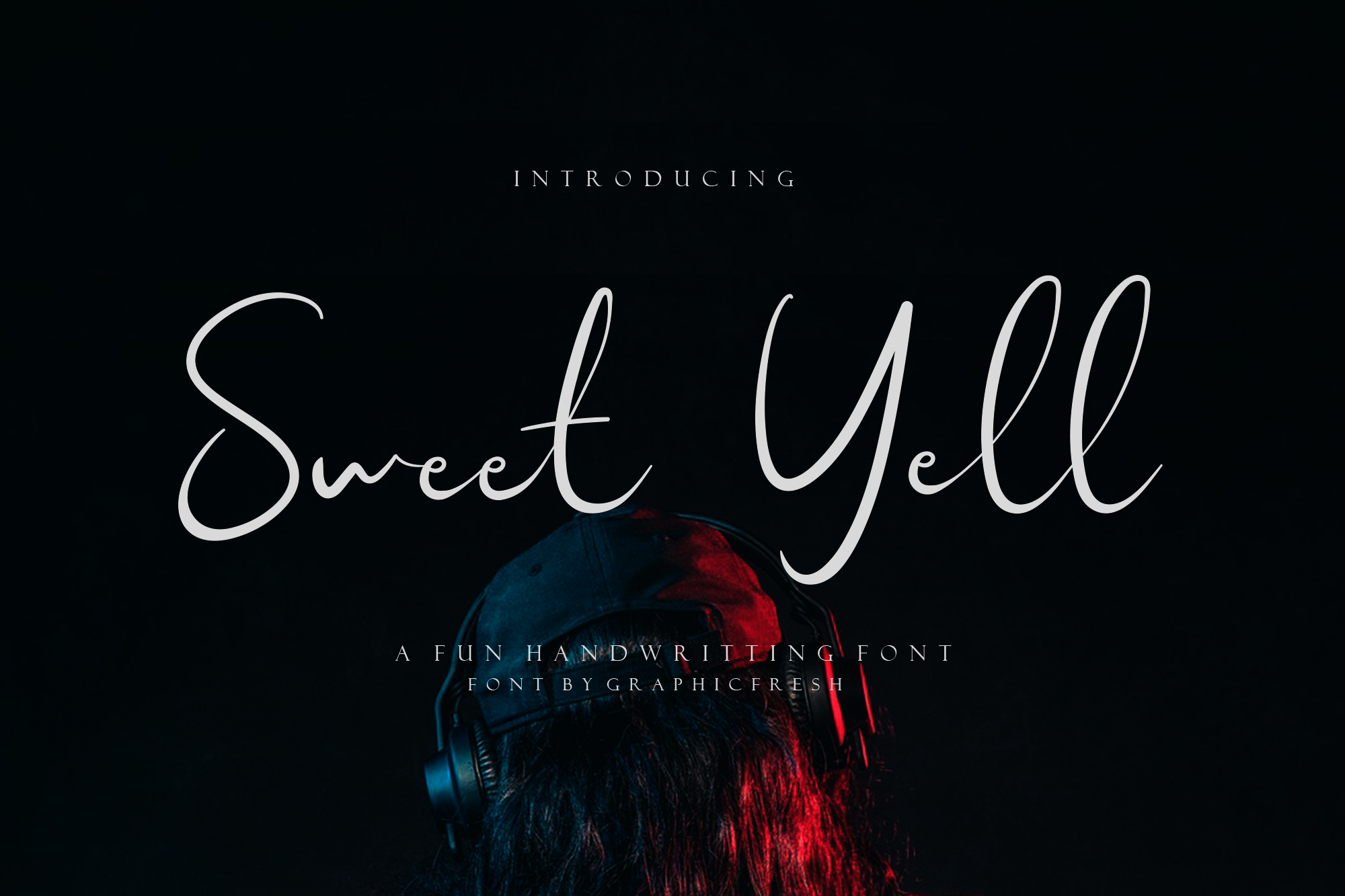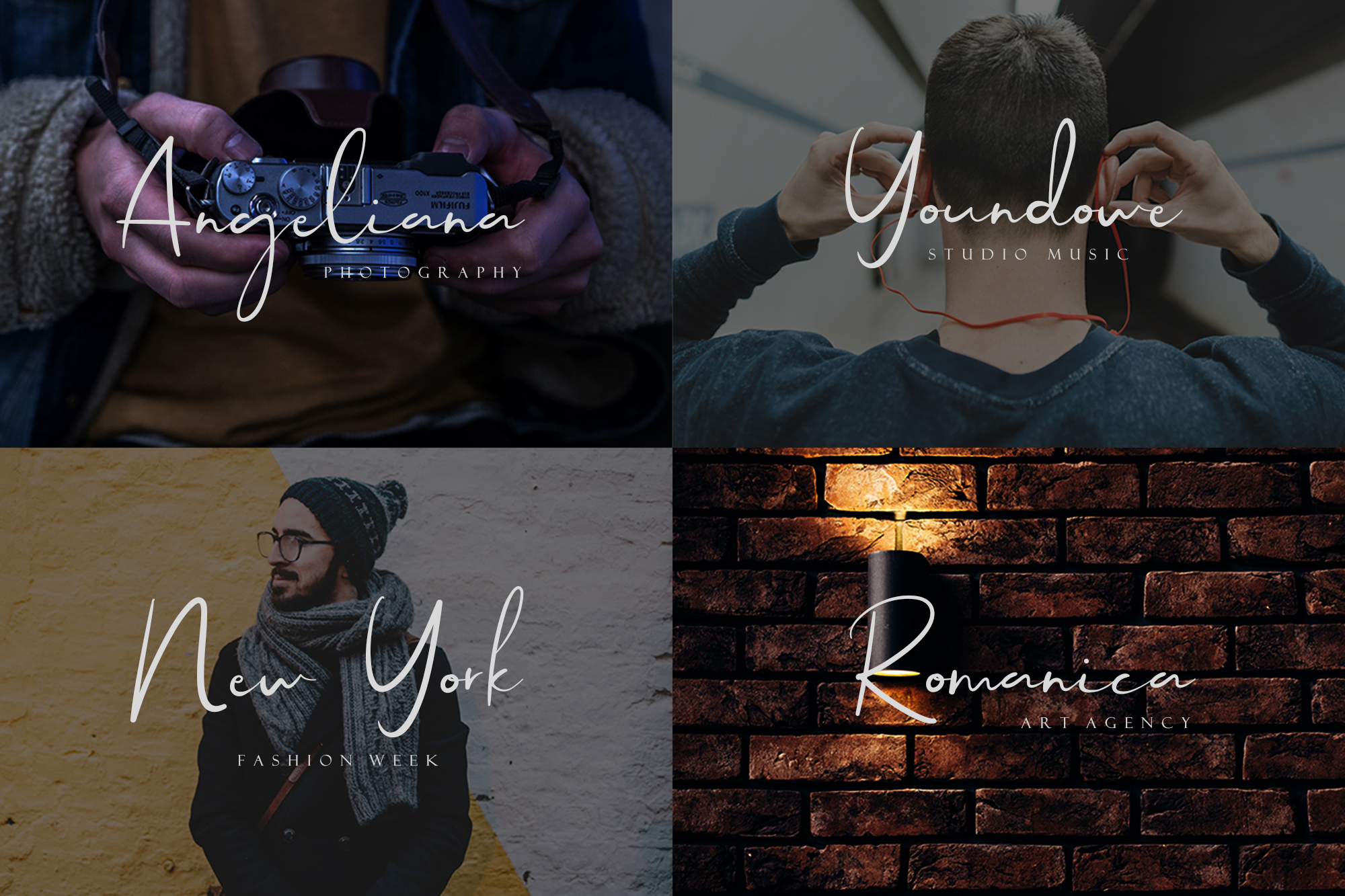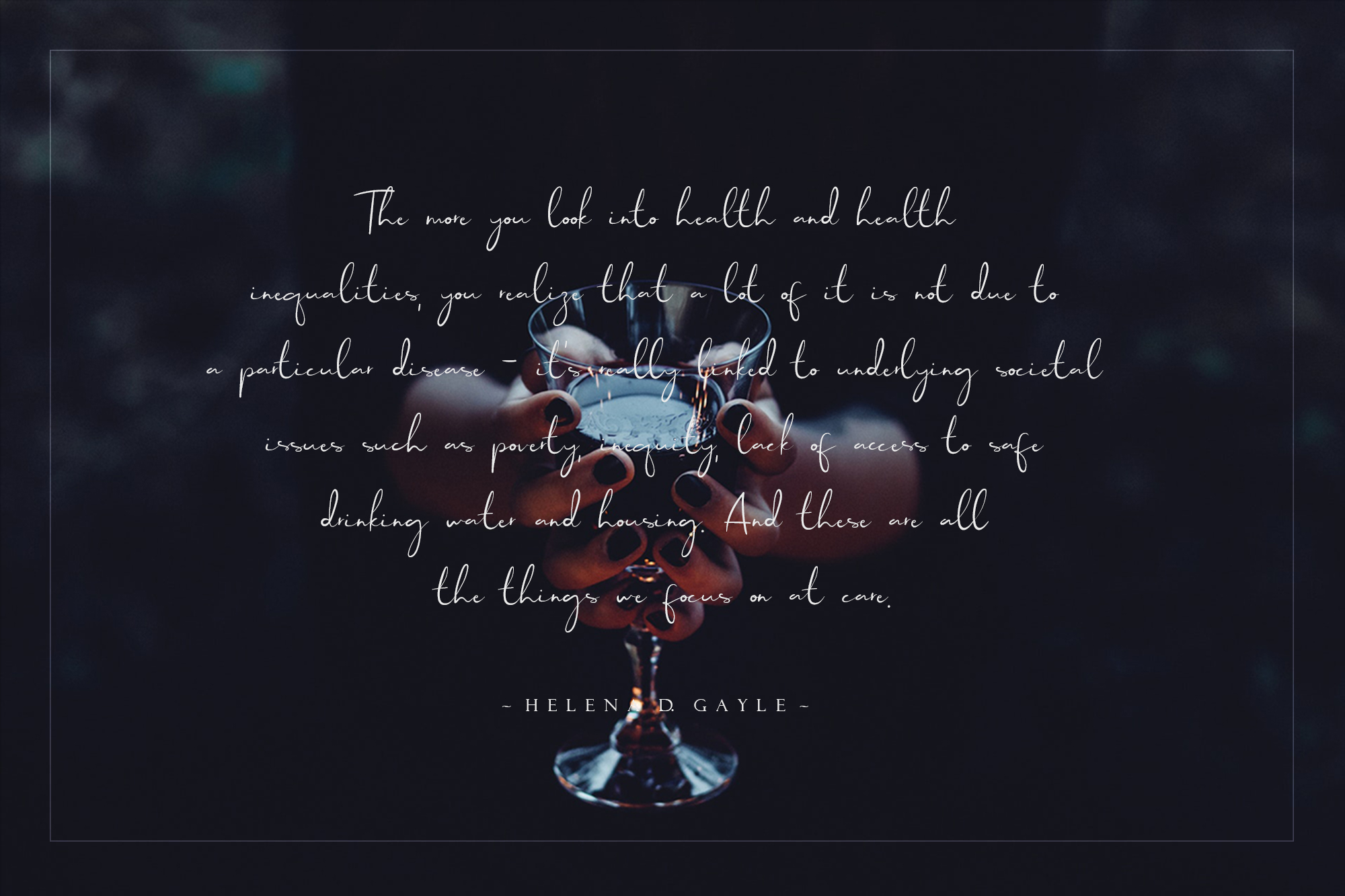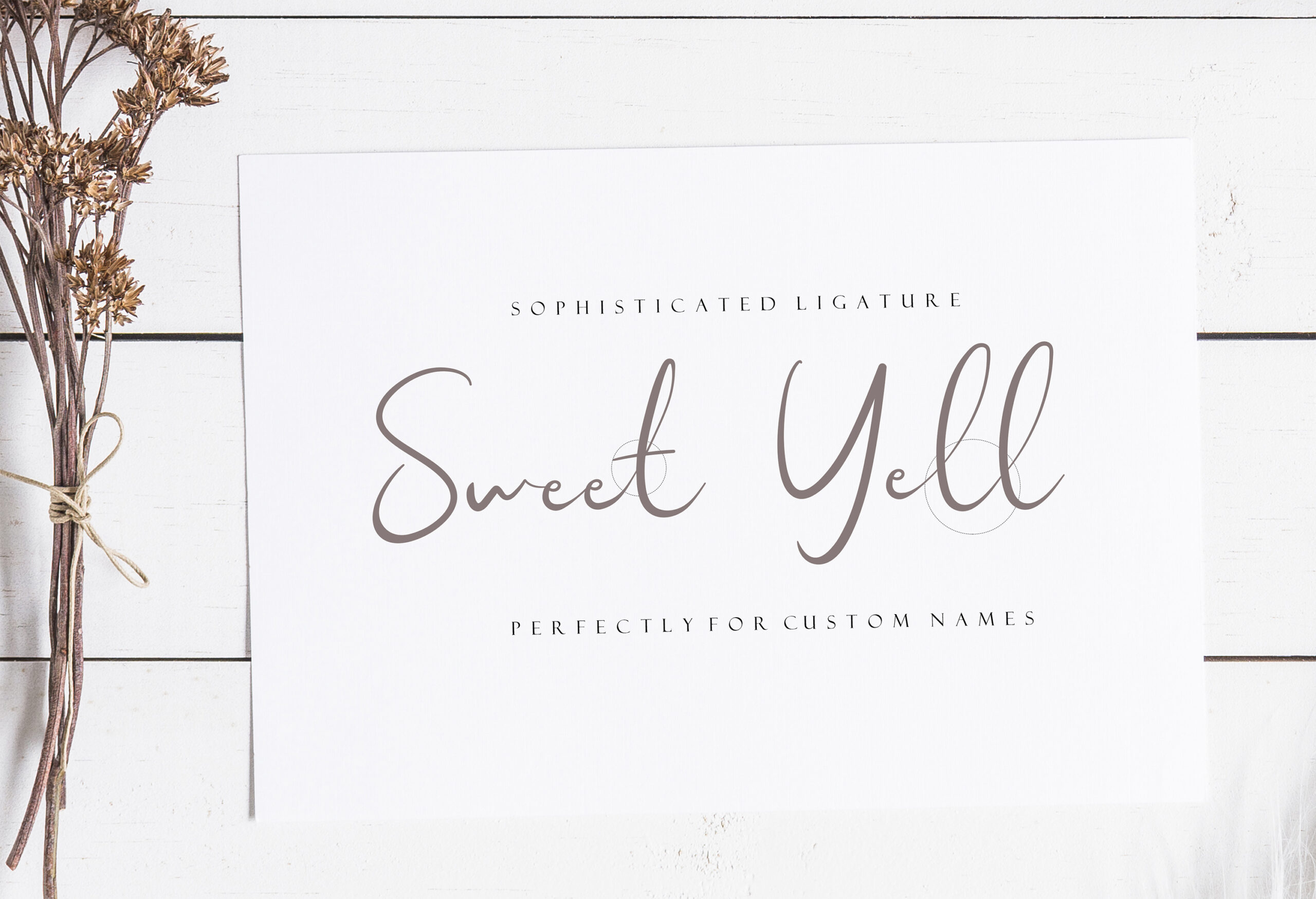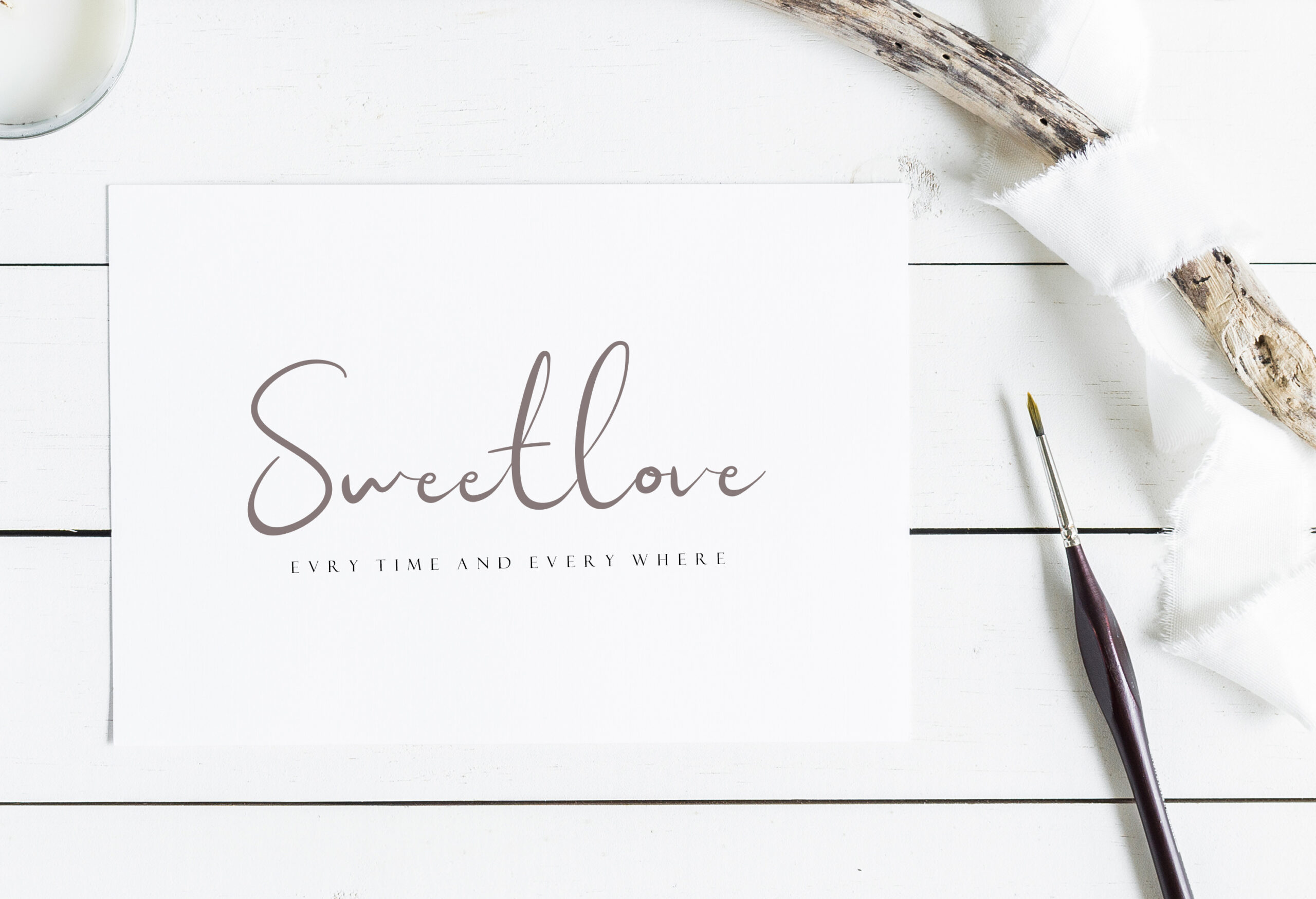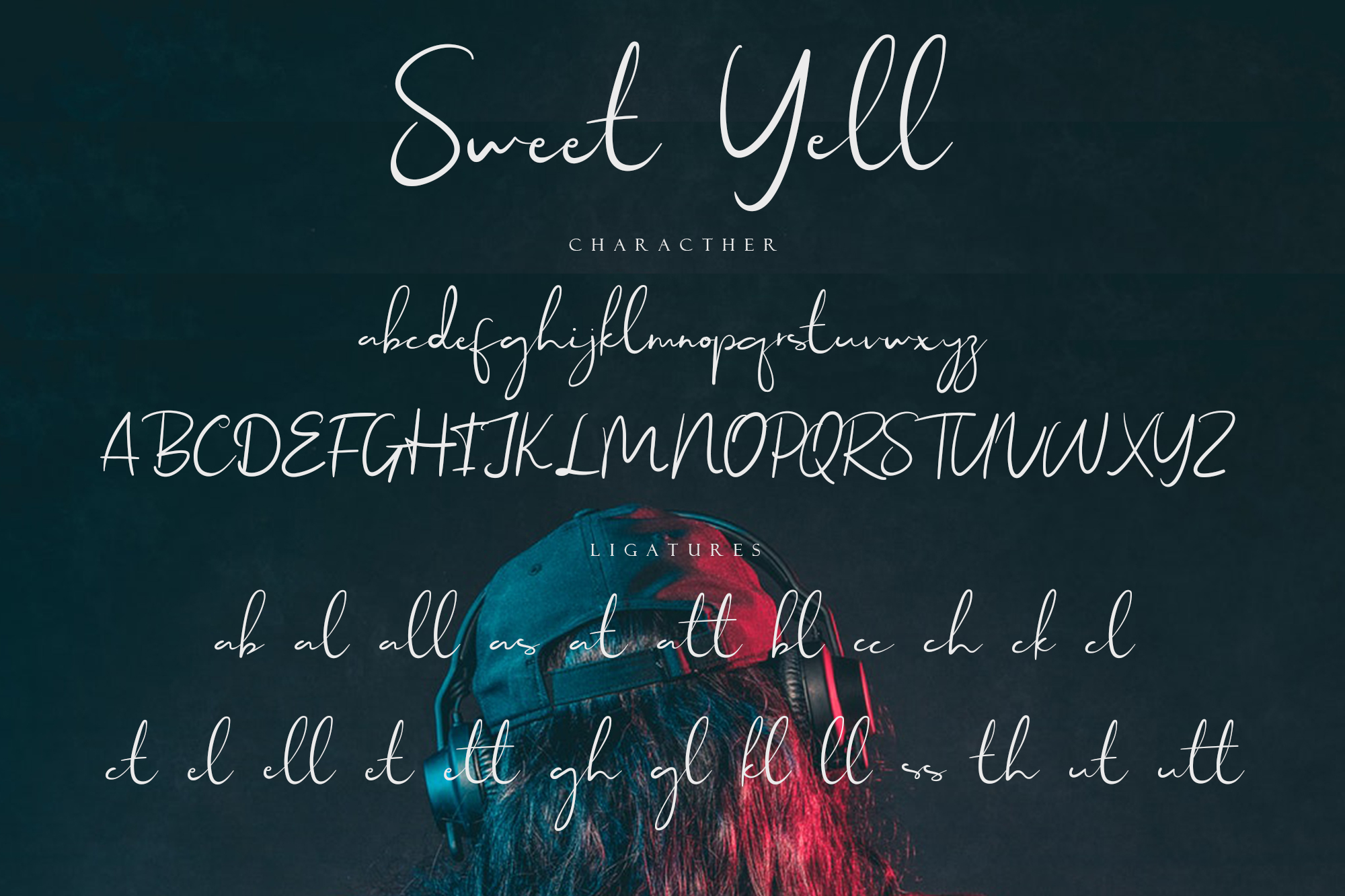
Sweet Yell Font
About Sweet Yell Font
Sweet Yell is a stylish and modern script font, perfect for minimal designs or fun and carefree projects. Sweet Yell lives up to its namesake as a sweet addition to any of your projects.